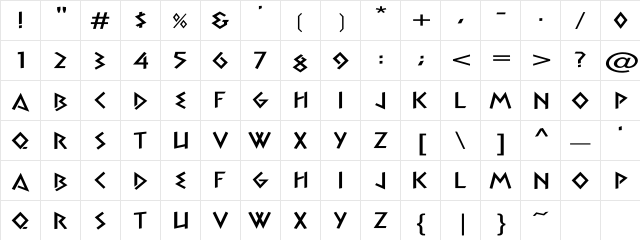
ColleseumBd Regular
Design Context for ColleseumBd
ColleseumBd is a composed and adaptable typeface that performs quietly and consistently across a wide range of design contexts.